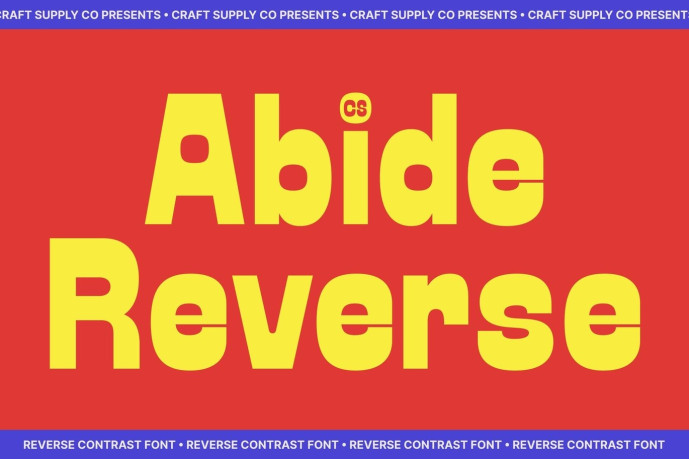
Abide – Reverse Contrast Font
Designer: Craft Supply Co.
CS Abide – Reverse Contrast Display Font: Where Retro Style Meets Modular Modernity Retro-Inspired Design with Modular Aesthetics This is a reverse contrast display sans serif font that blends retro charm with contemporary style through bold modular construction. Featuring the distinctive characteristic of thicker horizontal strokes and slimmer vertical strokes, it delivers a striking visual identity inspired by classic design movements.
Bold Structure with Distinctive Visual Rhythm This font creates a strong visual rhythm that immediately captures attention. Its modular aesthetic gives every letter a structured and architectural quality, making the font highly effective for impactful headlines and expressive display compositions. The reverse contrast styling adds a unique personality that sets it apart from traditional sans serif typefaces.
Vintage Influence with Contemporary Versatility This font successfully bridges the gap between classic and modern design. While its reverse contrast construction recalls vintage typography and historical print styles, its minimalist forms and clean execution ensure it remains relevant for contemporary branding and editorial work.
Perfect for Logos, Posters, and Promotion Perfect for posters, branding, editorial layouts, promotional materials, packaging, logos, advertising campaigns, magazine covers, event graphics, and other creative projects that celebrate classic design movements with a modern twist. Its bold reverse contrast forms make it ideal for typography that seeks to communicate originality, confidence, and visual impact.